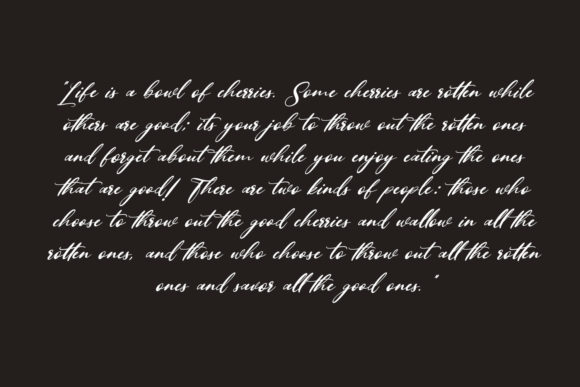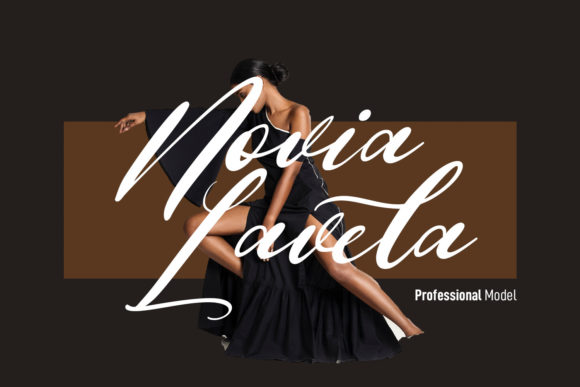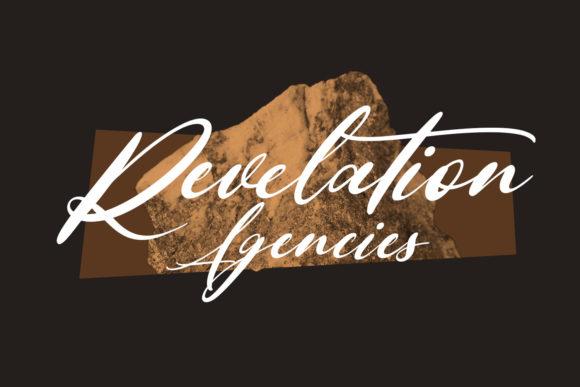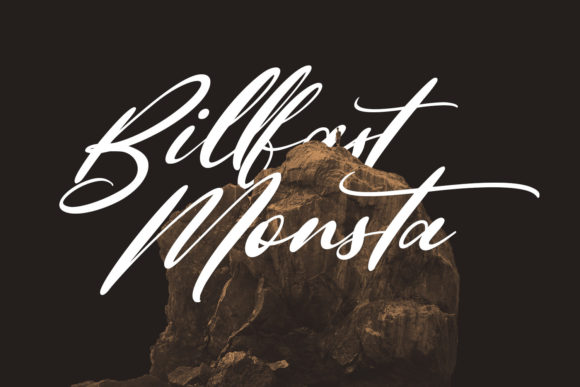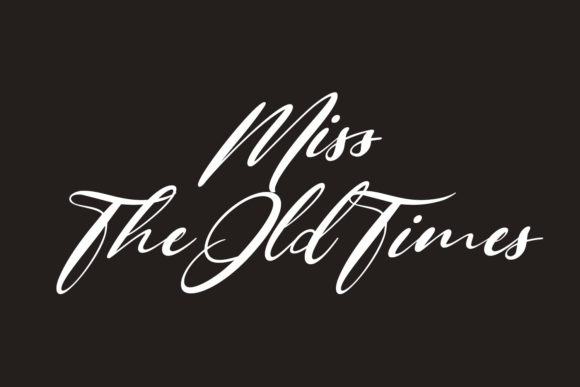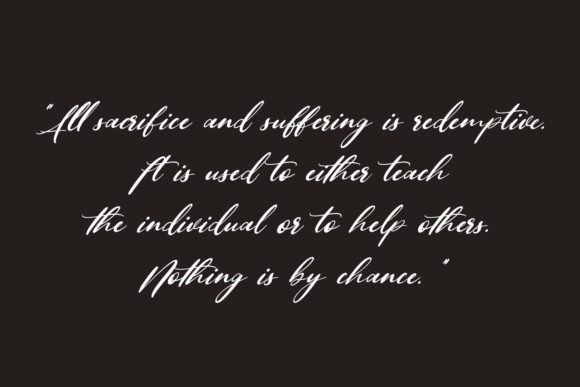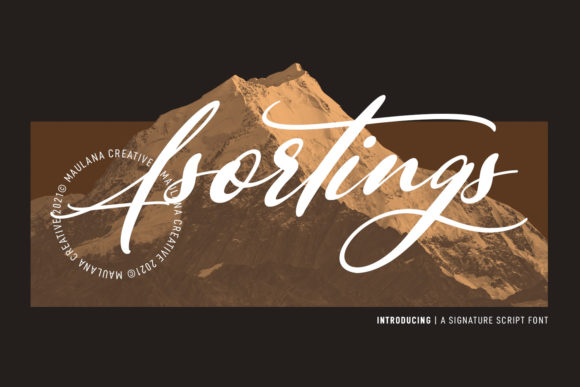
Introducing Asortings Script Font: Elevate Your Designs with Timeless Elegance
Are you on the hunt for a font that adds a touch of personality and sophistication to your designs? Look no further than the Asortings Script Font. This lovely and timeless handwritten font is perfect for creating eye-catching logos, branding, and quotes that leave a lasting impression. With its unique and beautiful touch, Asortings Script is sure to make your design come alive!
Handwritten fonts have a way of adding a personal touch to any design. They evoke a sense of warmth, elegance, and sophistication, making them perfect for a wide range of design applications. From logos and branding to quotes and social media graphics, handwritten fonts are versatile and can be used to convey a variety of emotions and styles.
Asortings Script Font is a beautiful example of a handwritten font that is both elegant and timeless. Its flowing lines and curves give it a sense of movement and fluidity, making it perfect for designs that require a touch of sophistication and glamour.
What Makes Asortings Script Font Special?
So, what sets Asortings Script Font apart from other fonts? Here are just a few reasons why this font is a must-have for designers and crafters:
• Unique and Beautiful Touch: Every letter in Asortings Script Font has a unique and beautiful touch, which gives it a distinctive look and feel. This font is perfect for designs that require a personal touch and a sense of elegance.
• Timeless Elegance: Asortings Script Font is a timeless font that will never go out of style. Its classic look and feel make it perfect for designs that require a sense of sophistication and glamour.
• Ease of Use: Asortings Script Font is easy to use and can be applied to a wide range of design applications, from logos and branding to quotes and social media graphics.
• High-Quality Design: Asortings Script Font is designed with high-quality and precision, ensuring that it looks great in any design application.
Design Applications for Asortings Script Font
Asortings Script Font is a versatile font that can be used in a wide range of design applications. Here are just a few ideas to get you started:
• Logos and Branding: Use Asortings Script Font to create eye-catching logos and branding materials that leave a lasting impression.
• Quotes and Social Media Graphics: Add a touch of elegance and sophistication to your quotes and social media graphics with Asortings Script Font.
• Invitations and Stationery: Use Asortings Script Font to create beautiful invitations and stationery that showcase your personal style.
• Packaging and Product Design: Add a touch of personality and elegance to your packaging and product design with Asortings Script Font.
Tips for Using Asortings Script Font
Here are a few tips for using Asortings Script Font in your designs:
• Use it Sparingly: Asortings Script Font is a bold and elegant font, so use it sparingly to add emphasis and personality to your designs.
• Pair it with Other Fonts: Pair Asortings Script Font with other fonts to create a unique and interesting contrast.
• Experiment with Colors: Experiment with different colors and textures to add depth and interest to your designs.
In conclusion, Asortings Script Font is a lovely and timeless handwritten font that is perfect for creating eye-catching logos, branding, and quotes. With its unique and beautiful touch, Asortings Script is sure to make your design come alive! Whether you’re a designer or crafter, this font is a must-have for anyone looking to add a touch of elegance and sophistication to their designs.